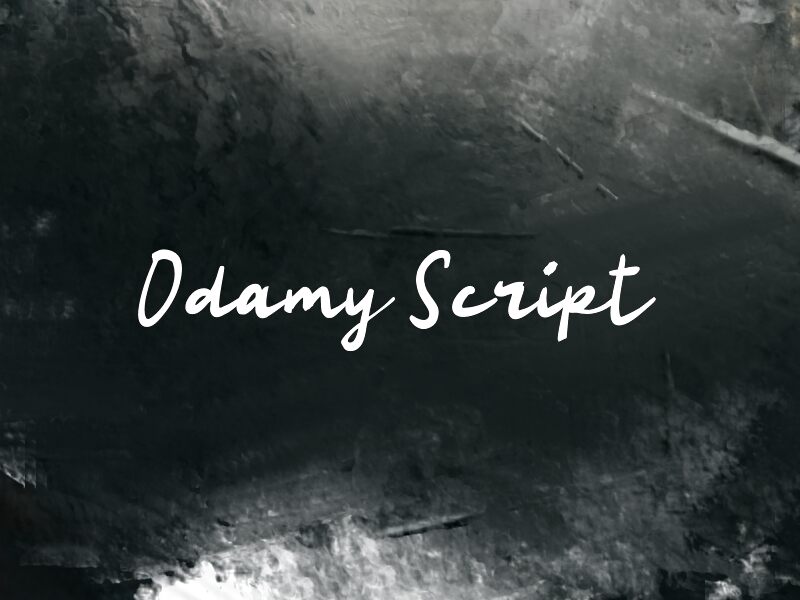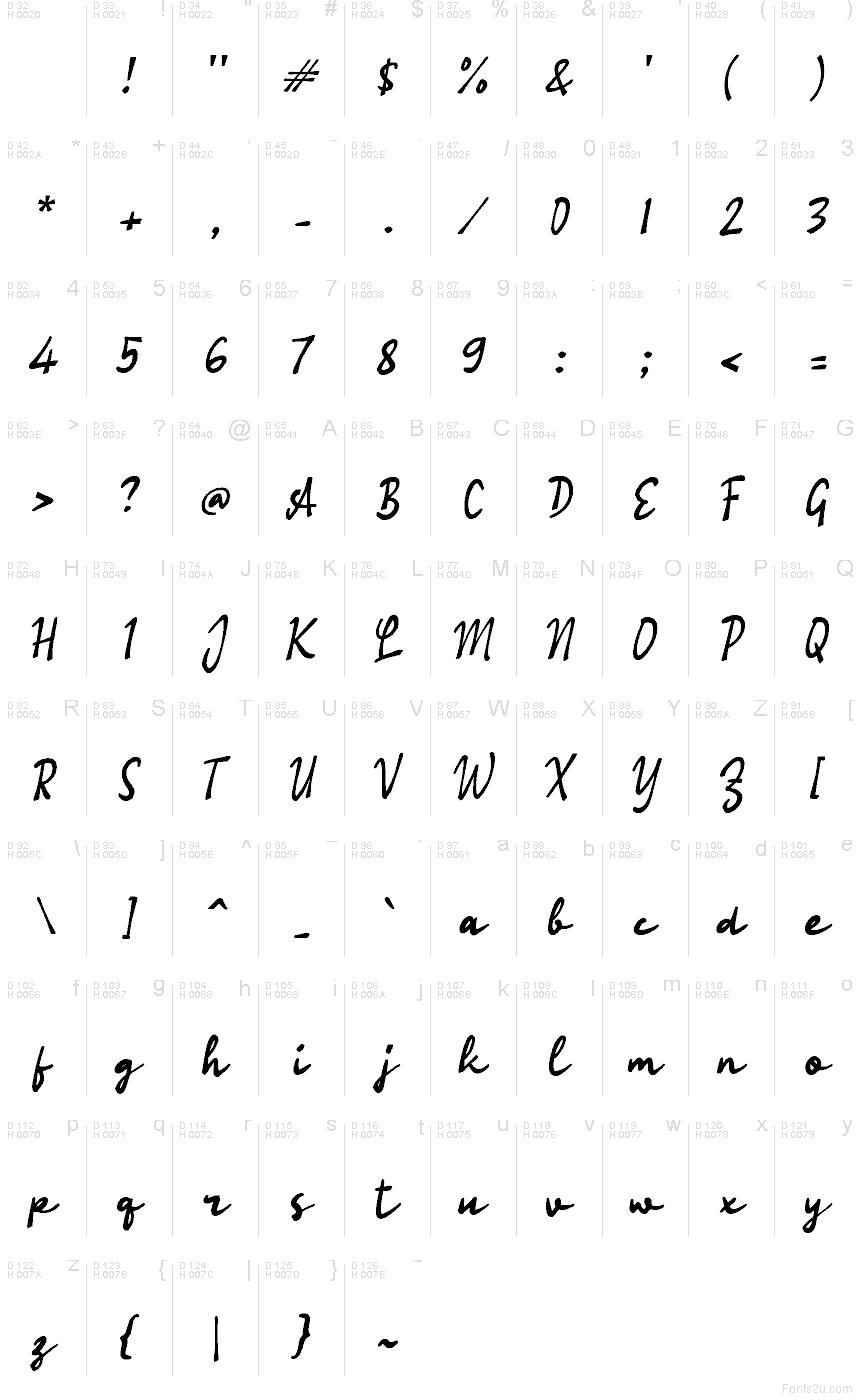
Odamy Script
Odamy Script font by wep is a free brush script typeface that captures the easy flow of quick, confident handwriting. Each letter feels like it’s been painted in one smooth motion, with inky strokes that taper naturally and just enough texture to feel handmade without turning messy. The spacing stays open and airy, so even at smaller sizes your words stay readable while still looking personal and warm.
Using Odamy Script, your text feels like a note dashed off with a favorite marker—casual, friendly, and full of motion. This free font works beautifully for social media graphics, quote posts, logos, packaging, name tags, event invitations, and handmade-style branding. Pair Odamy Script with a clean sans serif in smaller text to keep layouts grounded while letting the brush lettering shine as the main voice.